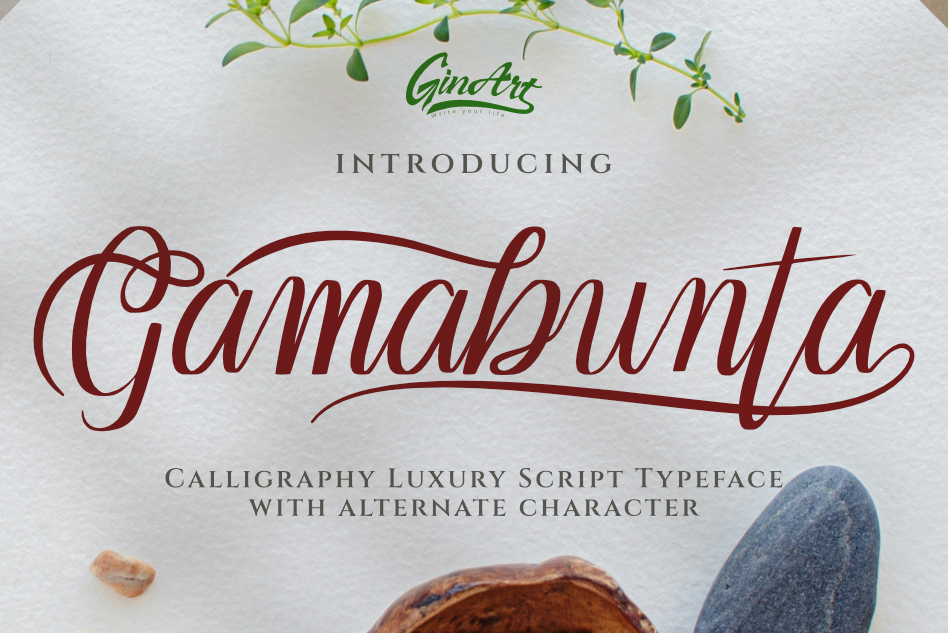
Gamabunta - Luxurious Script Font
Gamabunta - Calligraphy Luxury Script Typeface Gamabunta is a luxurious calligraphy font with an elegant and artistic touch. The name "Gamabunta" embodies timeless sophistication and classic appeal, perfect for a wide range of design needs. Equipped with a variety of alternate characters, this font allows limitless creative exploration. Each letter is carefully crafted to add a professional and refined touch to your projects.
- A wide range of alternate characters for unique variations.
- Elegant and versatile style, suitable for both formal and casual designs.
- Multilingual character support.
- Branding and visual identity.
- Wedding invitations and special events.
- Greeting cards, posters, and premium product packaging.
- Social media and business promotional materials.
- Creative design projects requiring a touch of elegance.
Let Gamabunta elevate your designs with captivating and unforgettable aesthetics!